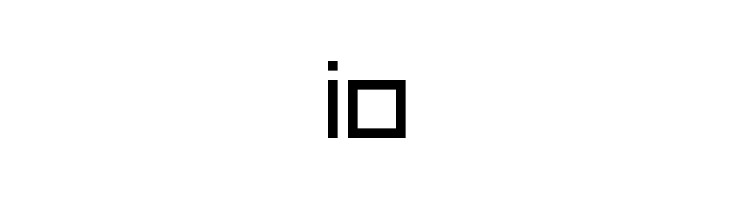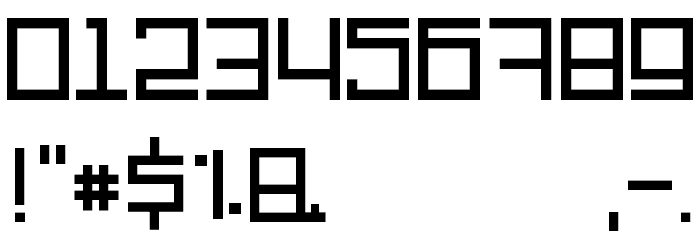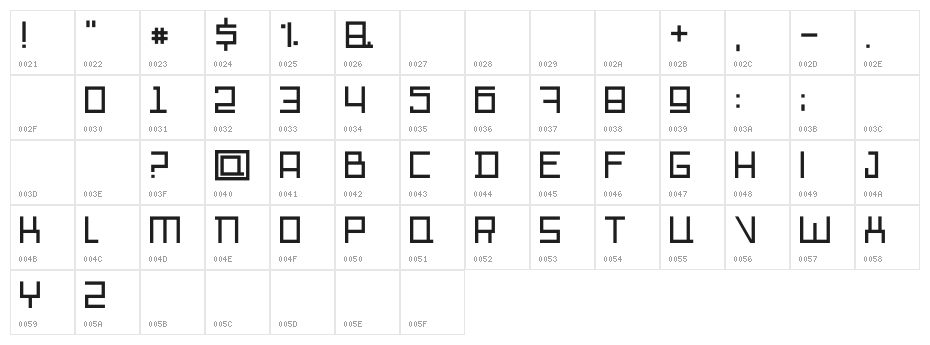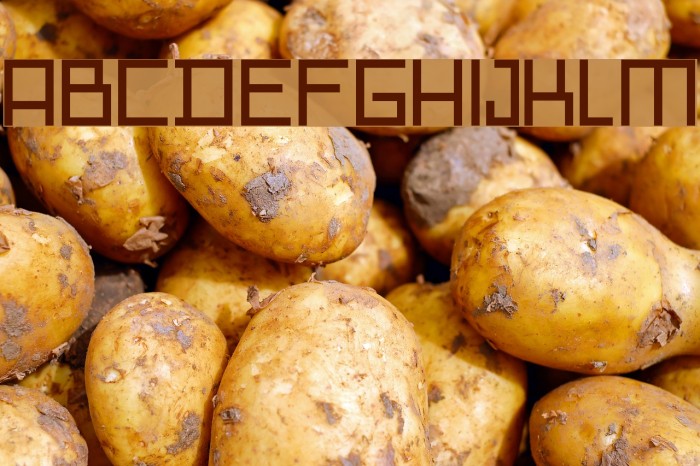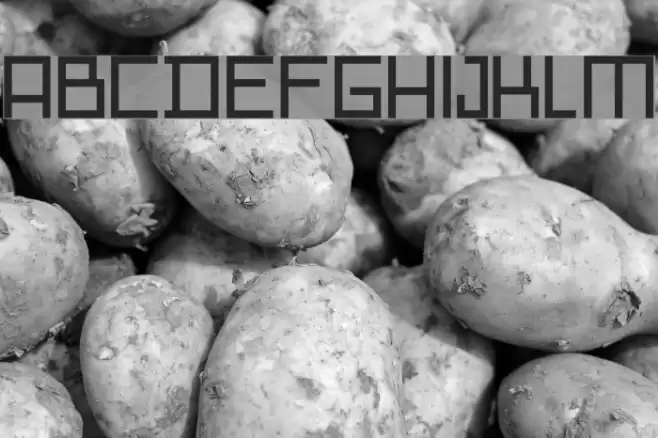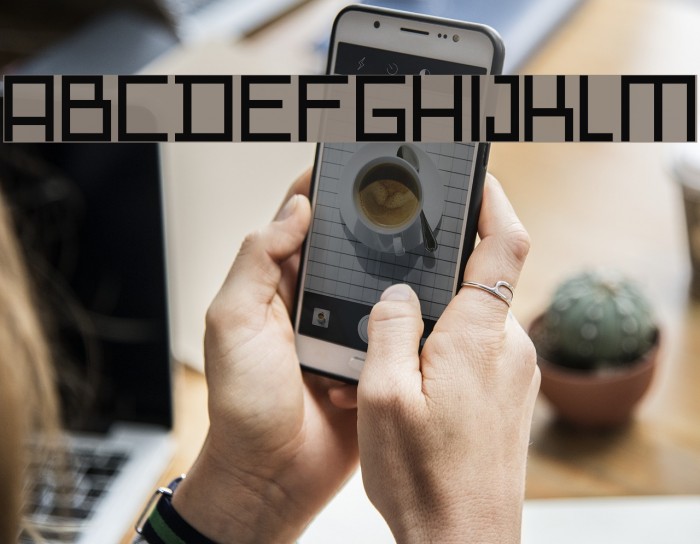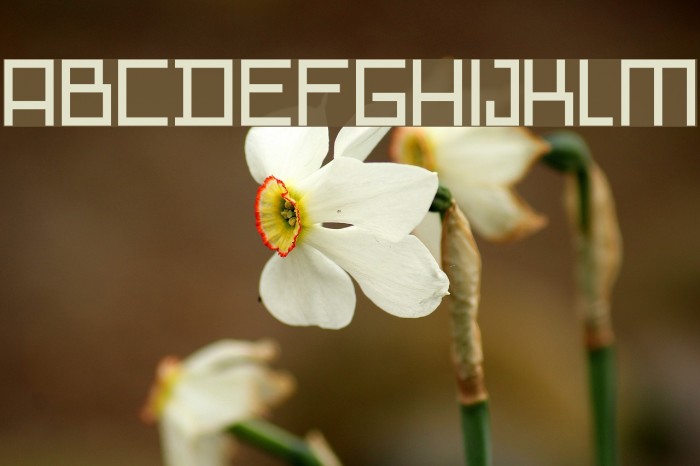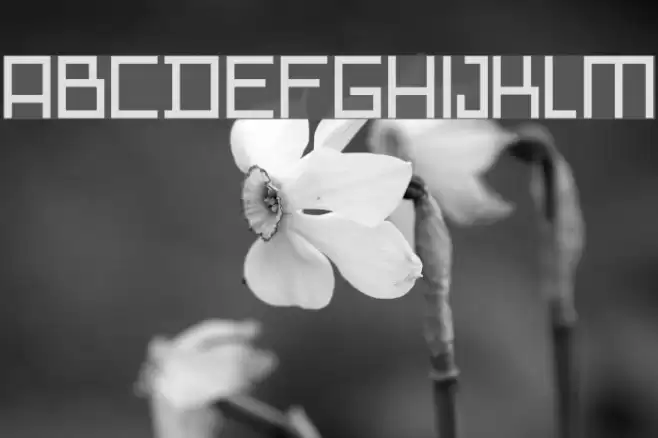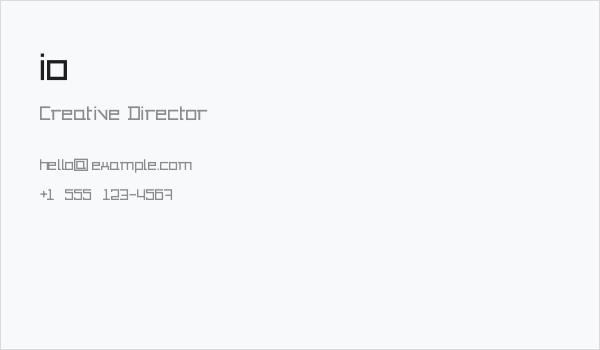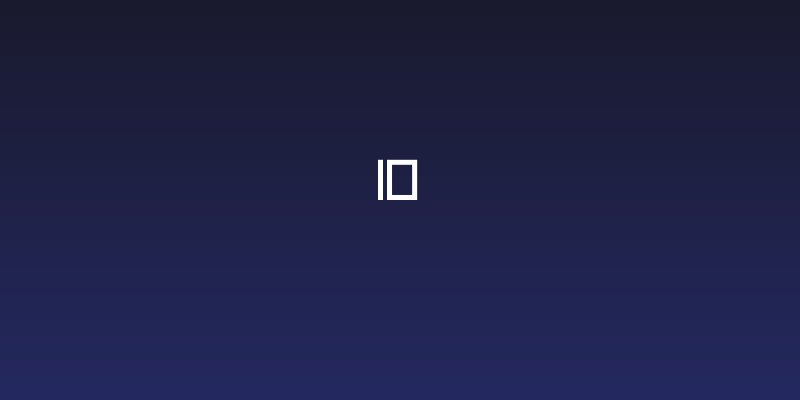
io Font
io Description
This font features a geometric and modular design, characterized by its blocky and angular letterforms. Each character is constructed with a consistent stroke width, giving it a uniform and cohesive appearance. The uppercase and lowercase letters maintain a similar height, enhancing its modern and futuristic aesthetic. The numerals and special characters follow the same design principles, ensuring a seamless integration across all glyphs. The font's structure is reminiscent of digital or pixelated styles, making it suitable for tech-oriented themes. Its clean lines and lack of curves contribute to a highly legible and distinctive look.
| Use Case | Logos, Headlines, Digital interfaces |
| Proposed Projects | Ideal for technology branding, digital interfaces, video game design, and futuristic posters. |